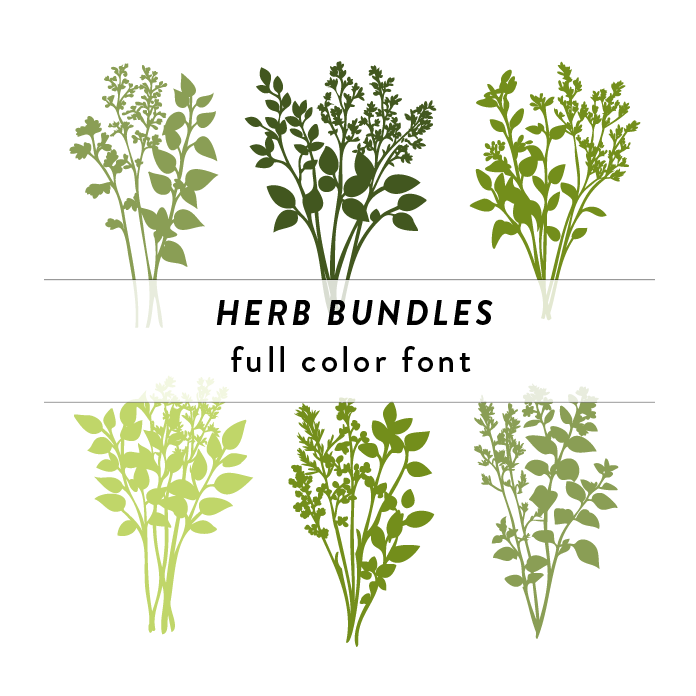
Color fonts will appear black if not used in a compatible program. This font type should be used with Silhouette Studio to appear in color. You can almost smell these sweet herb bundles! Use for home decor, wedding, and other diy projects.